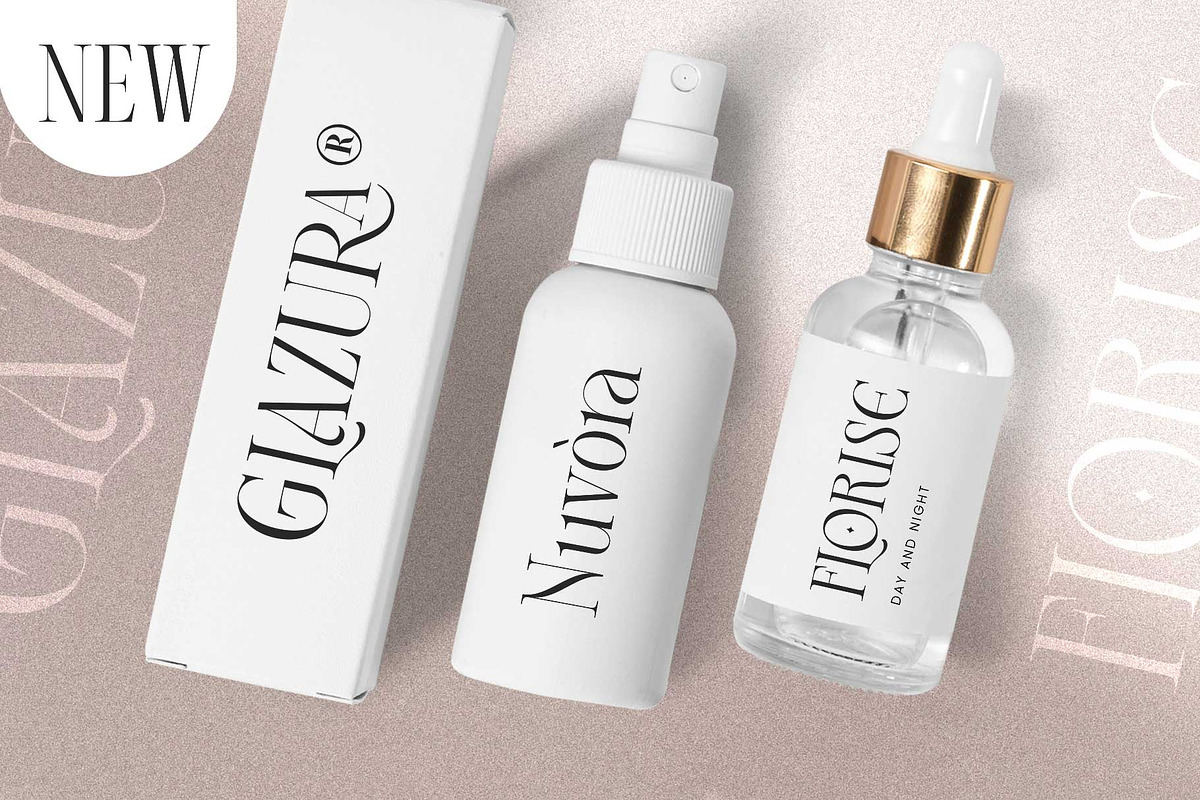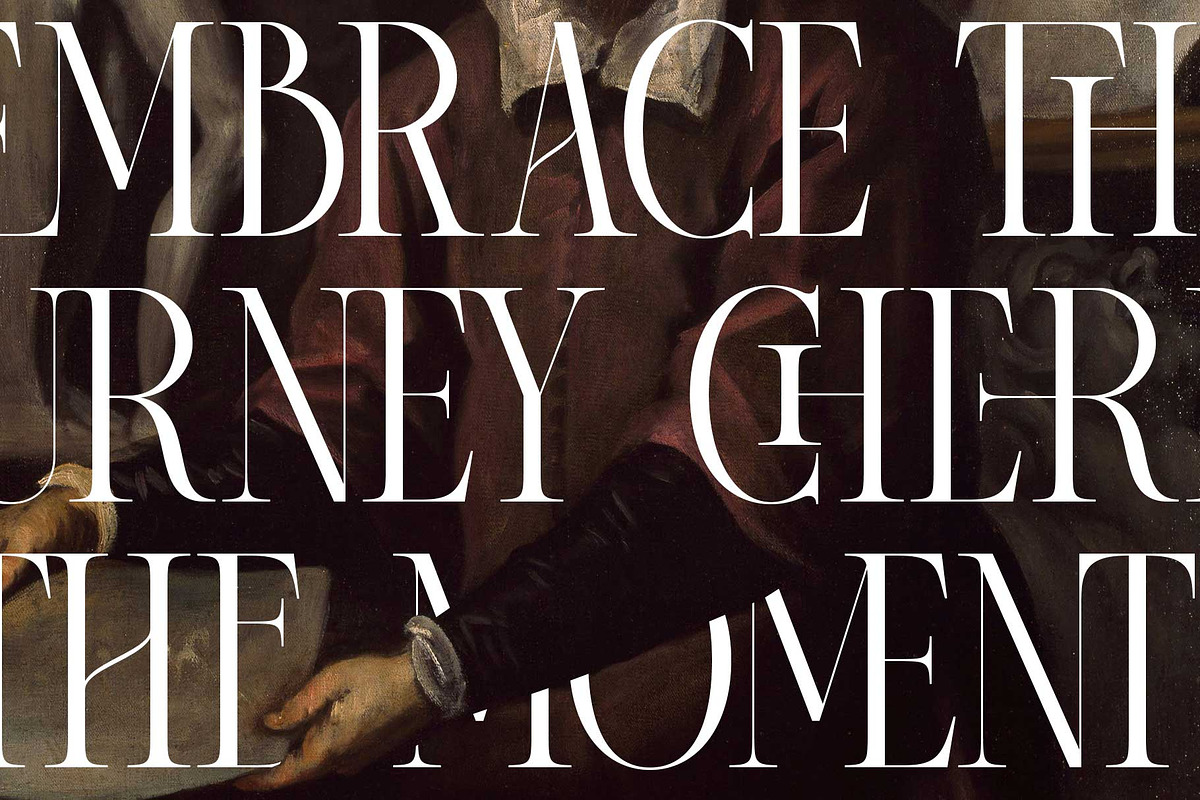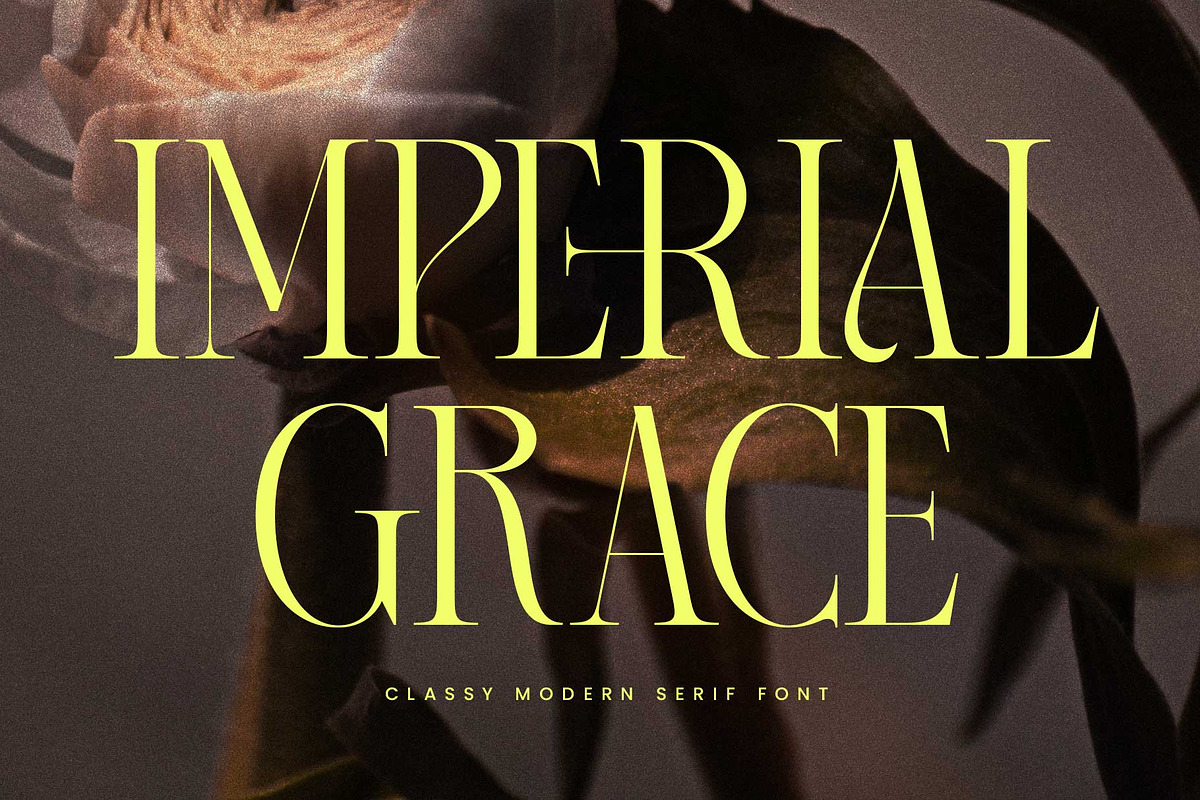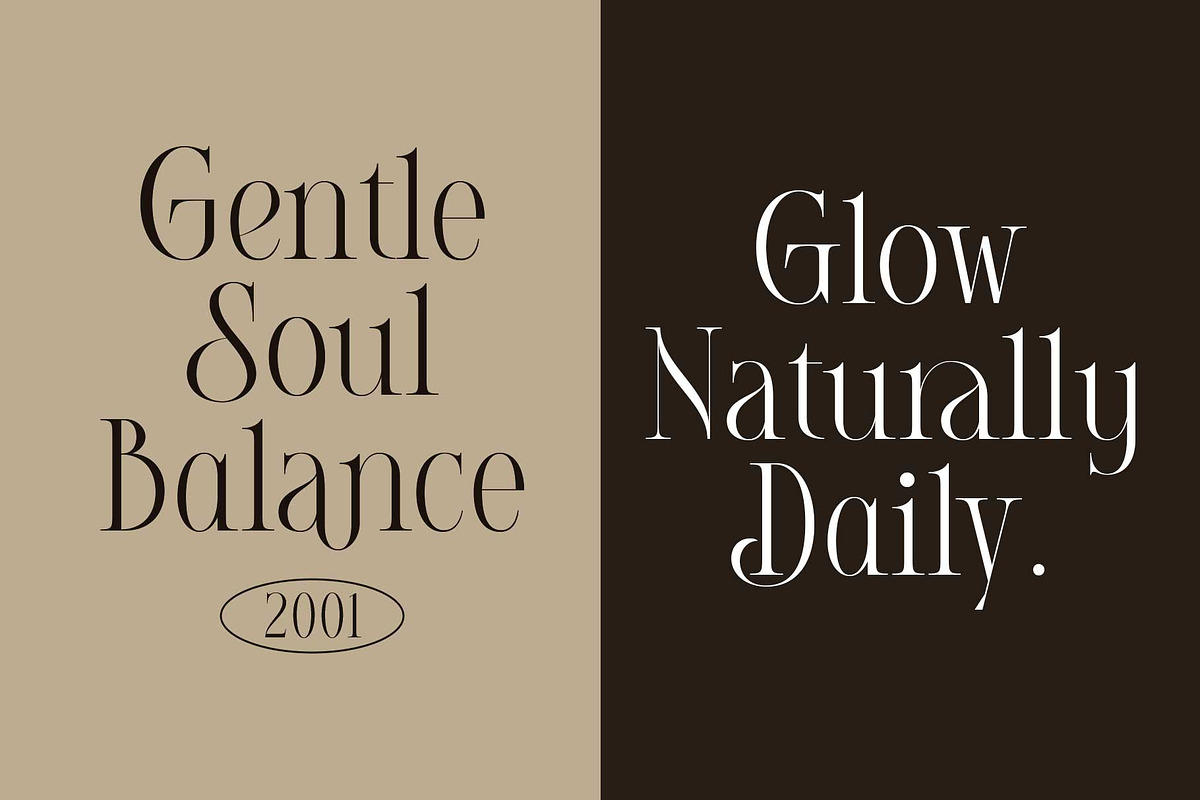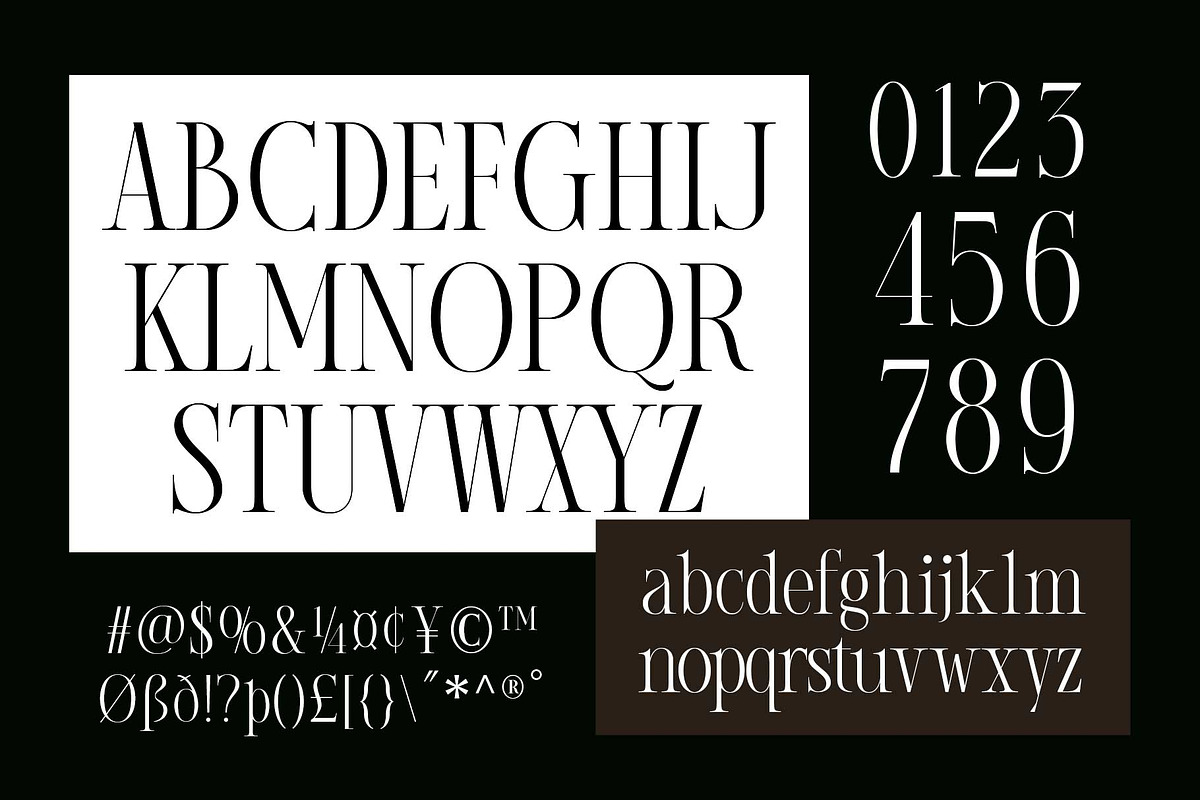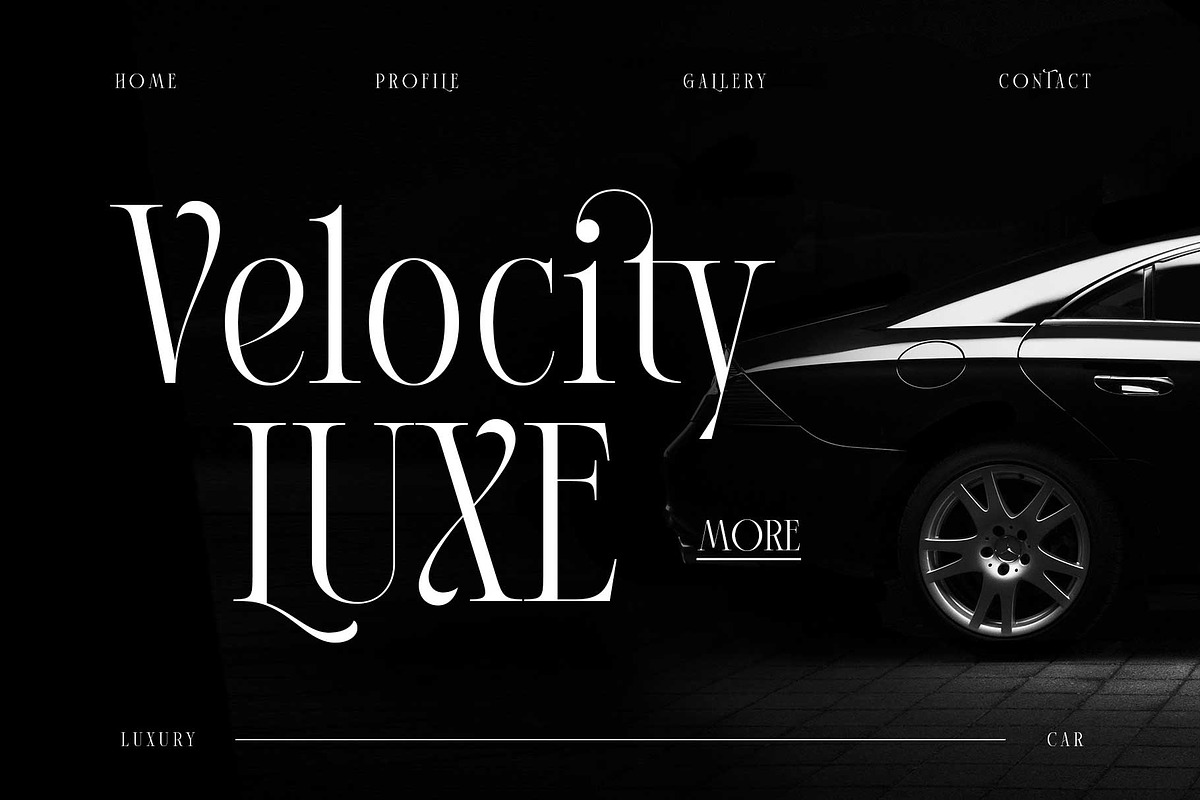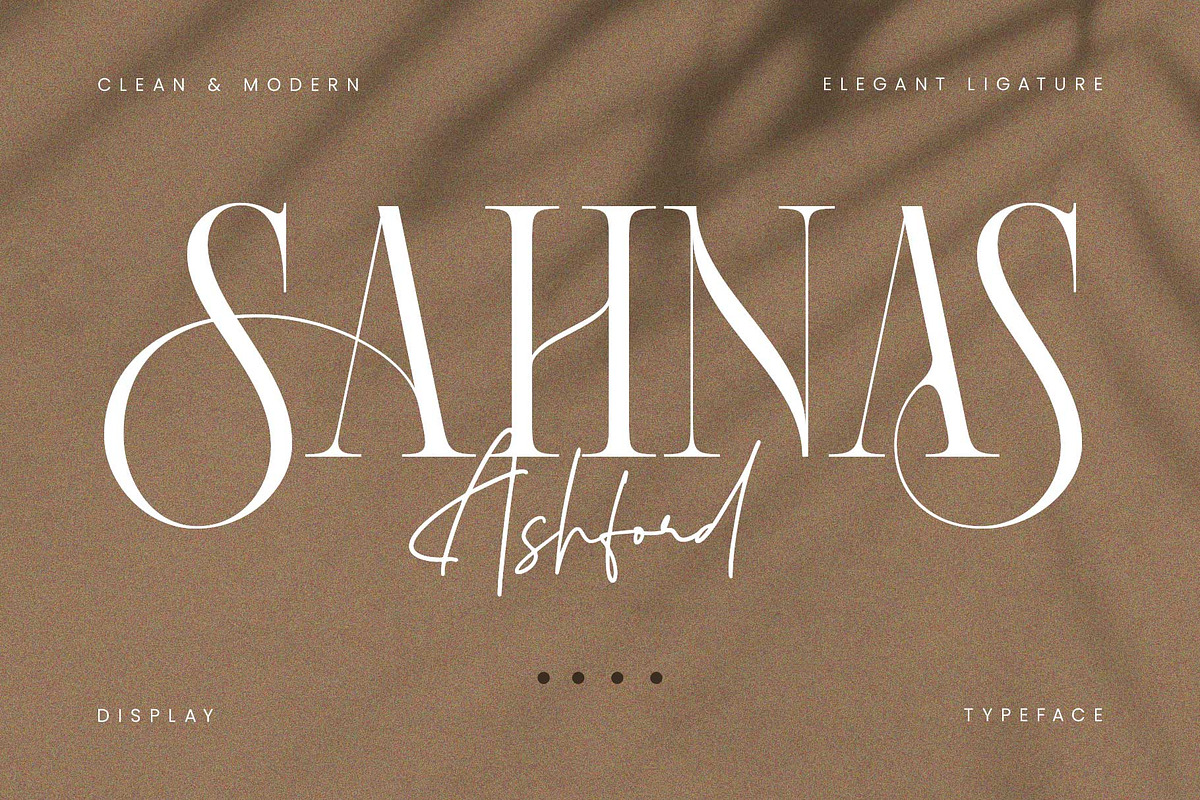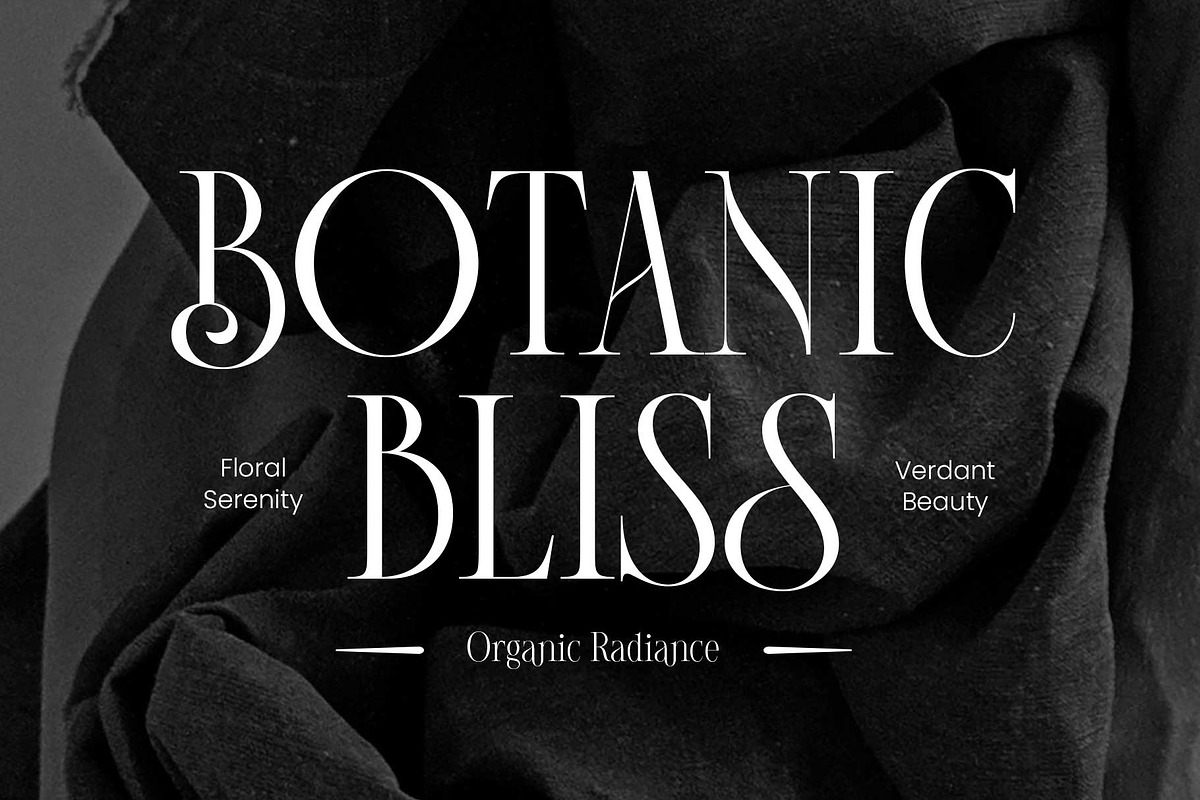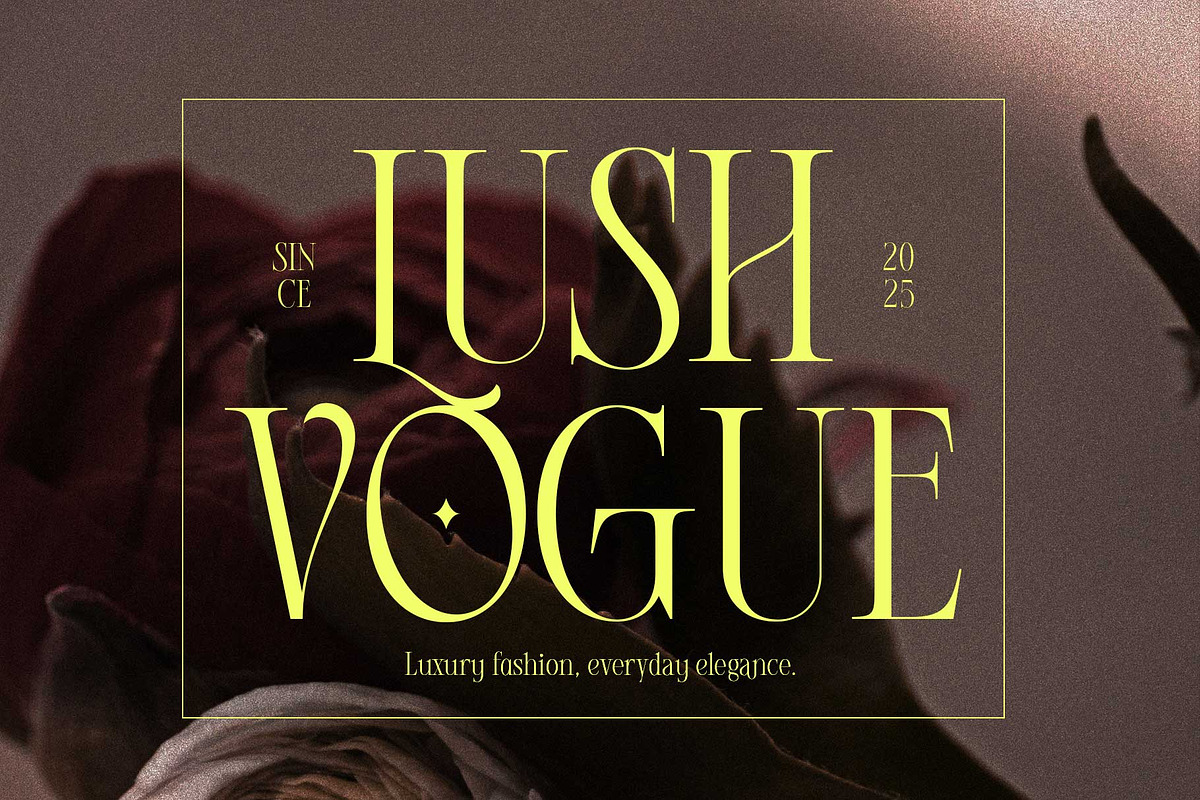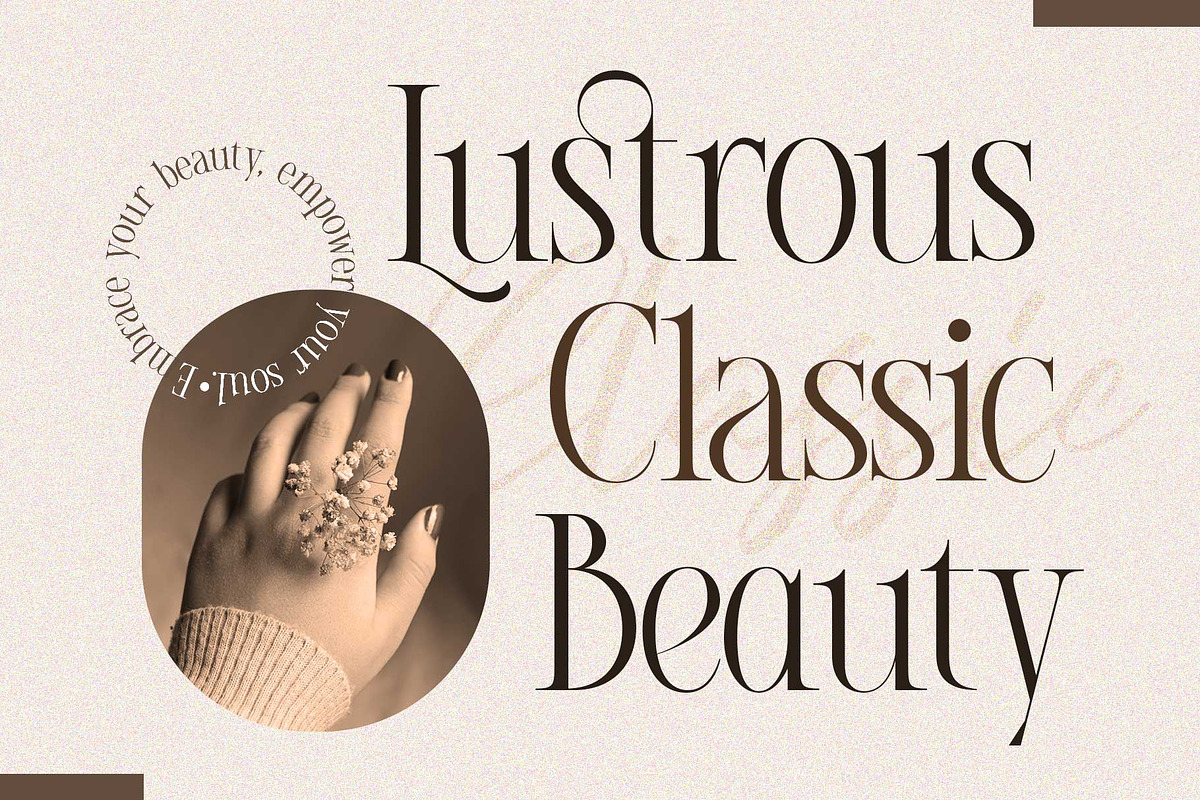
Imperial Grace - Modern Classic
Introducing Imperial Grace, a modern-classic serif font that exudes elegance and sophistication. With its high contrast, decorative swash, and feminine vibes, this font is a must-have for creating standout designs.
Imperial Grace is condensed serif which visualizes a versatility and prestige to enhance your designs further with its elegant ligatures and stylistic alternates.
Perfect for editorial layouts, magazines, books, cards, posters, social media, invitations, wedding designs, and more, Imperial Grace is your great choice for refined and timeless creations.
Fonts featured :
- Stylistic alternates
- Custom ligatures